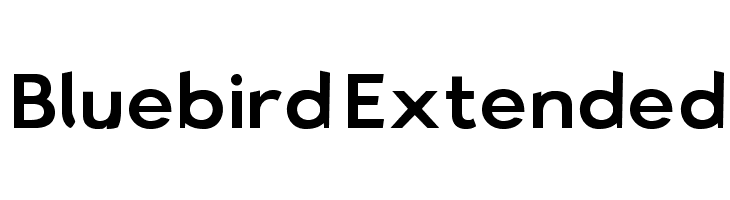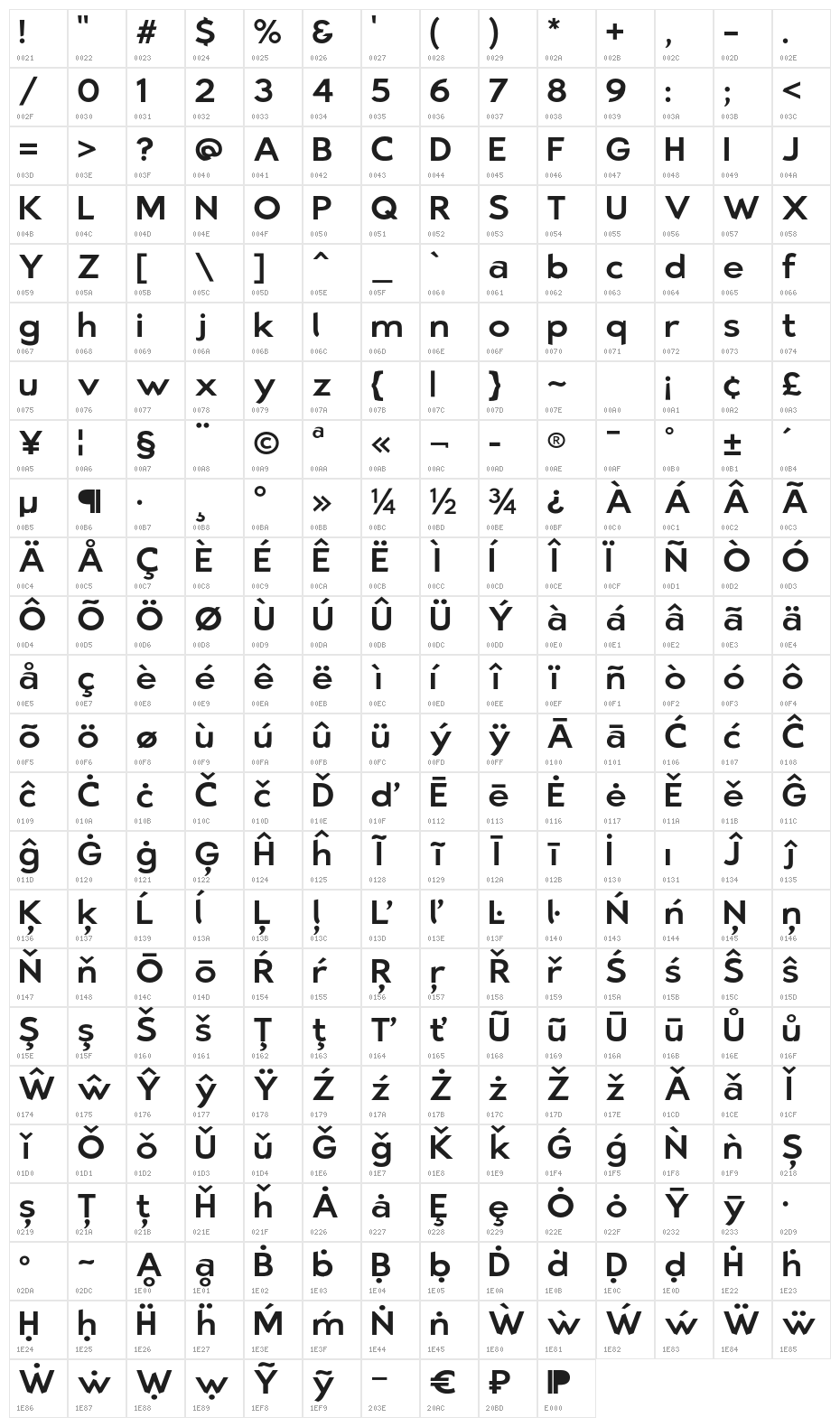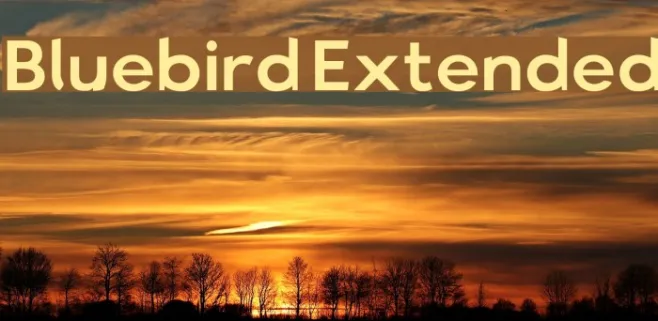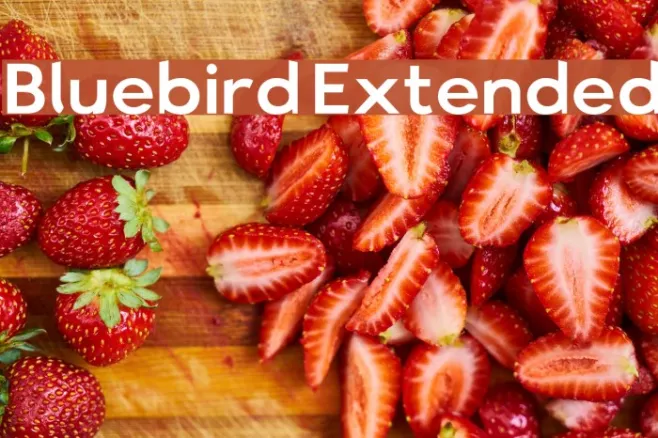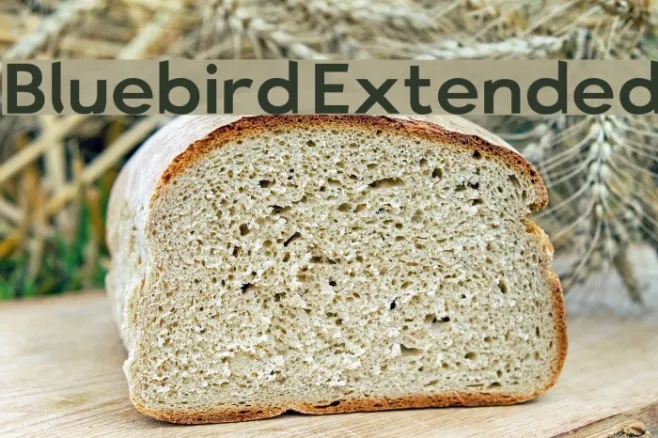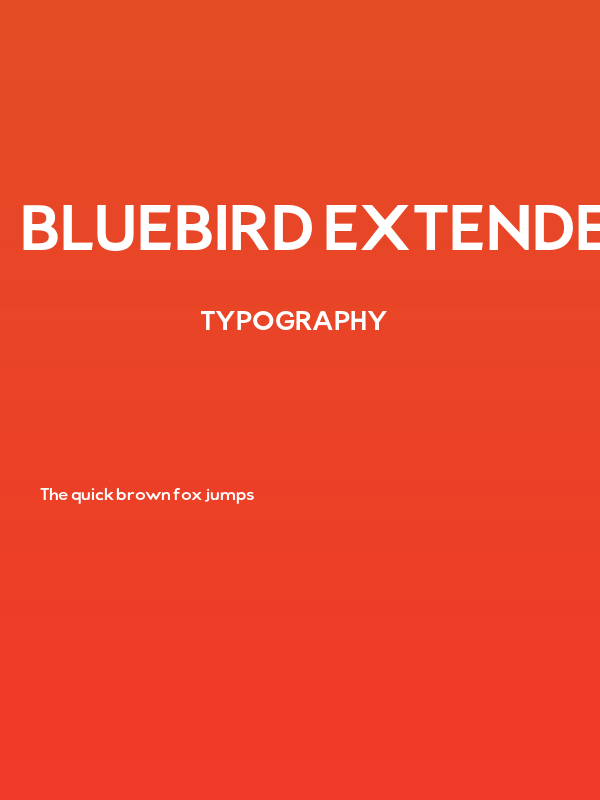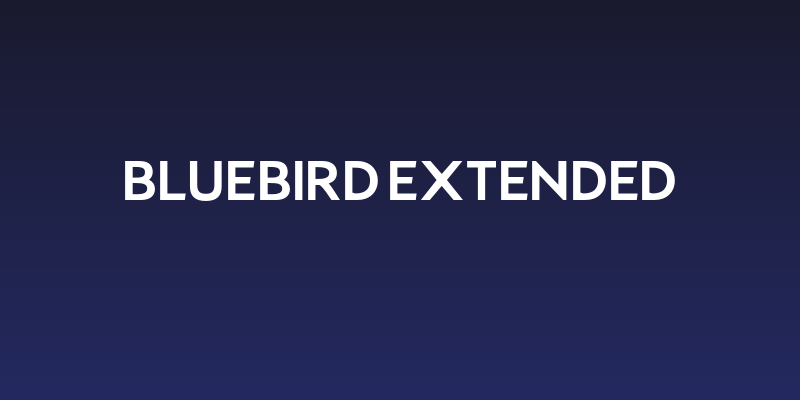
Bluebird Extended Font
Bluebird Extended Description
This typeface features a clean and modern sans-serif style with a geometric structure. The letters are well-balanced, with consistent stroke widths that give it a uniform appearance. The uppercase letters are bold and impactful, while the lowercase letters maintain a friendly and approachable look. The numerals are clear and easy to read, making them suitable for various applications. Special characters are included, adding versatility to the font. The overall design is sleek and professional, making it ideal for contemporary design projects.
| Proposed Projects | Ideal for branding, advertising, web design, and editorial projects. |